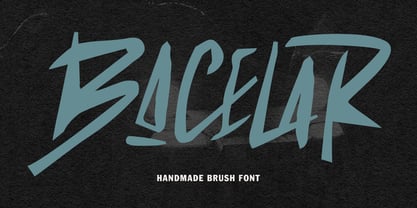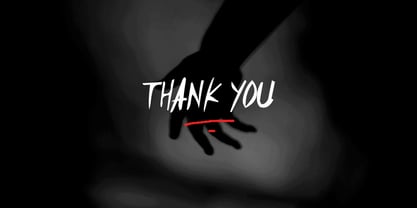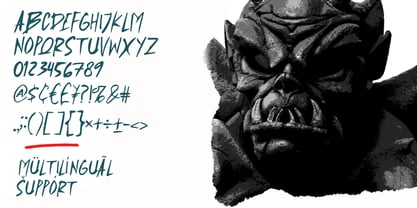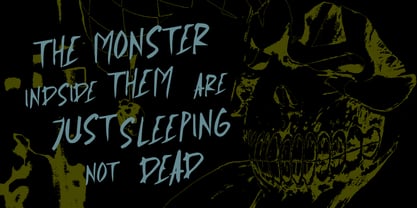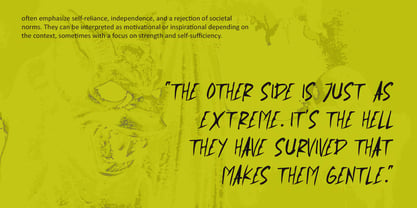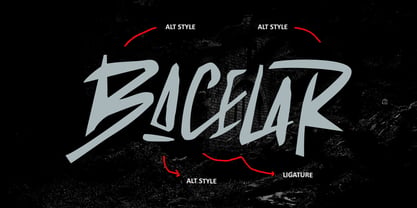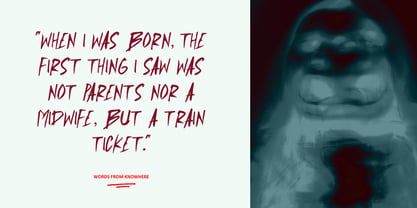
MC Bacelar
von Maulana Creative
Die Schriftfamilie MC Bacelar wurde von Gilang Maulana entworfen und von Maulana Creative veröffentlicht. MC Bacelar enthält 1 Stile. Mehr über diese Familie
Bacelar is a unique handmade brush font. Fun character with a bit of ligatures and alternates to give you an extra creative work. Bacelar font support multilingual more than 100+ language. This font is good for logo design, Social media, Movie Titles, Books Titles, a short text even a long text letter and good for your secondary text font with sans or serif. Make a stunning work with Bacelar font.
Designer: Gilang Maulana
Foundry: Maulana Creative